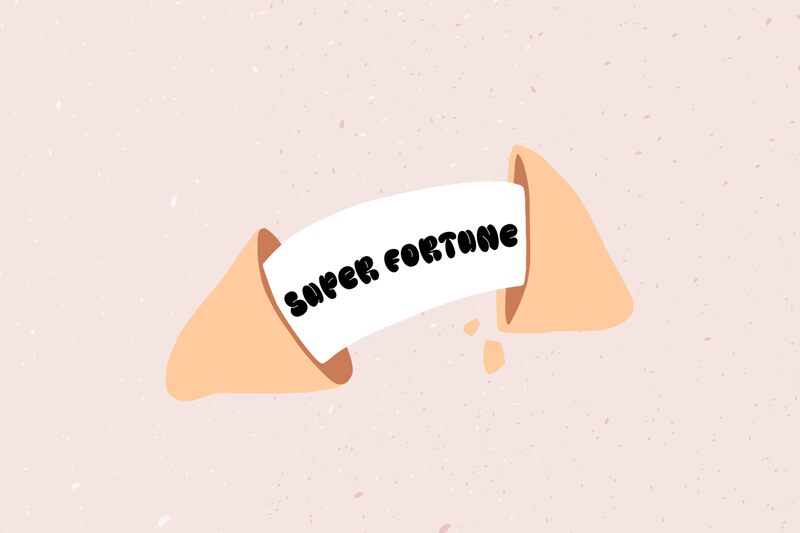
Super Fortune font from fsuarez913 is a graffiti font that owes its beauty to retro-inspired elements. Displaying an expressive design with a bold presence, it’s both whimsical and free-spirited. An exploded lettering style unlike any other, each character has its own identity but all have common ground in the great thick structure they display.
Turn ordinary writing into inspirational art for social media posts, apparel designs, posters, flyers, and banners! Logos for daring businesses, book covers for young adults and children alike stand to gain from Super Fortune’s exceptional style too. The added feature is that this font is free to download and use!